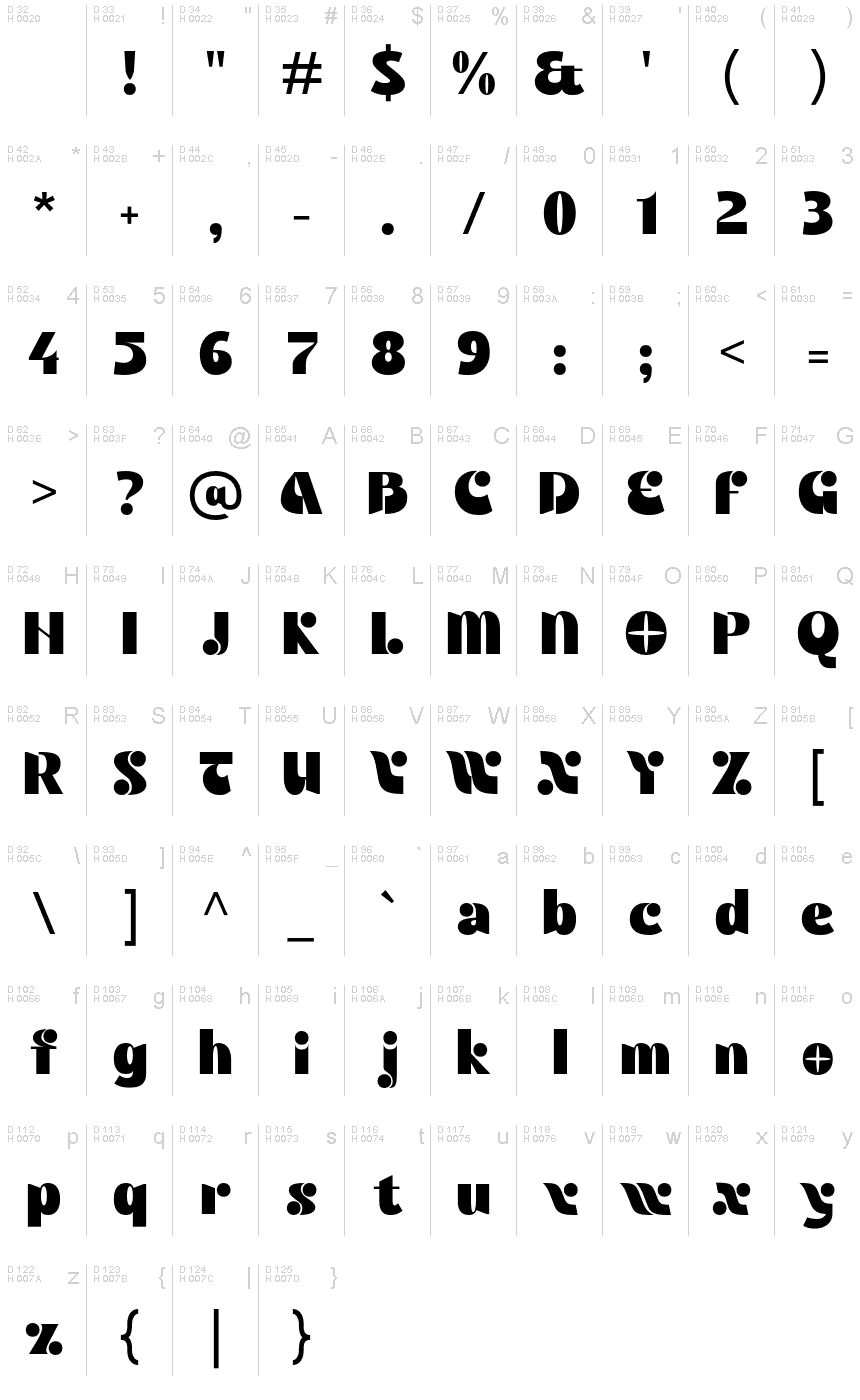
ATNOMBRA-Regular
ATNOMBRA is a groovy display font designed by Drizy Studio. With its bold weight and retro style, this font is perfect for projects that need a touch of 70s funk, from music posters to apparel designs. Its vibrant and eye-catching style will add a unique flair to any project. Try using it for branding, packaging, and advertising campaigns for an unforgettable visual experience.